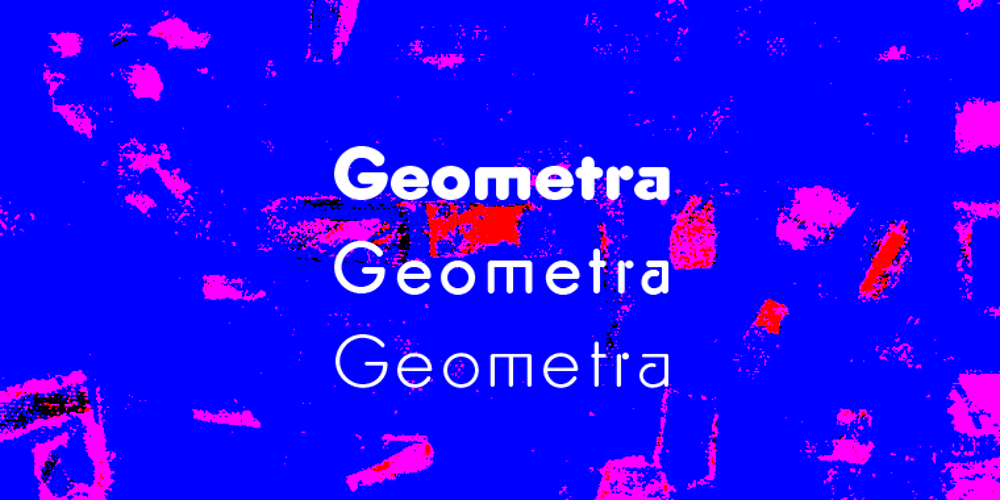
Geometra Rounded Font Family was designed by Gert Wiescher and published by Wiescher Design. Geometra Rounded contains 2 styles and family package options. Geometra is based on Paul Renners Futura Classic, the one that he designed before he had to soften it to make it more appealing to the broad public. I thought the original design would lend itself perfect to make a rounded version, that has got more character than the ever so boring DIN-typeface. The type-designer for interesting solutions Gert Wiescher